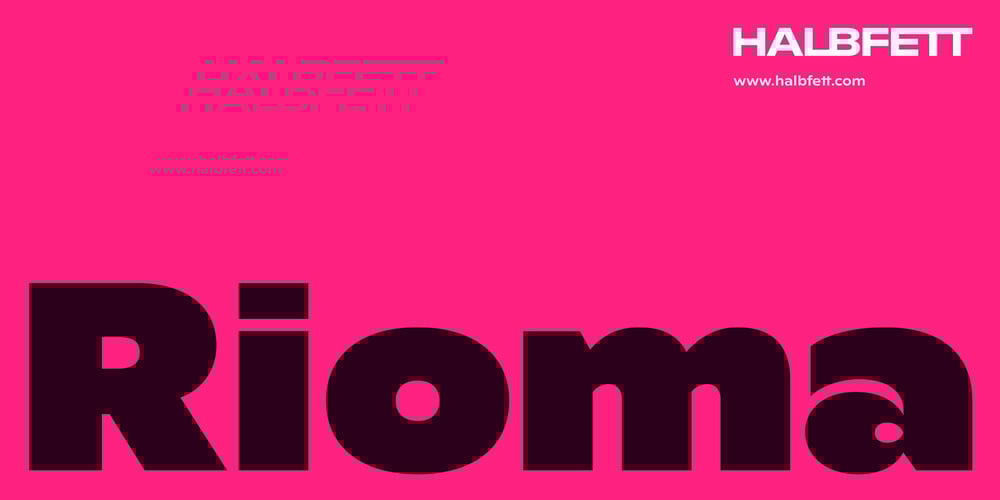
Rioma Font Family was designed by Deni Anggara and published by Halbfett. Rioma contains 16 styles and family package options. Rioma is a geometric typeface inspired by a legend of type design: Antique Olive. As a font family, Rioma ships in two different formats. Depending on your preference, you can install the typeface as two Variable Fonts or use the family’s 16 static OpenType font files instead. Those weights run from Light to Heavy. While the static-format fonts offer a good intermediary-step selection, users who install the two Variable Fonst have vastly greater control over their text’s stroke width.